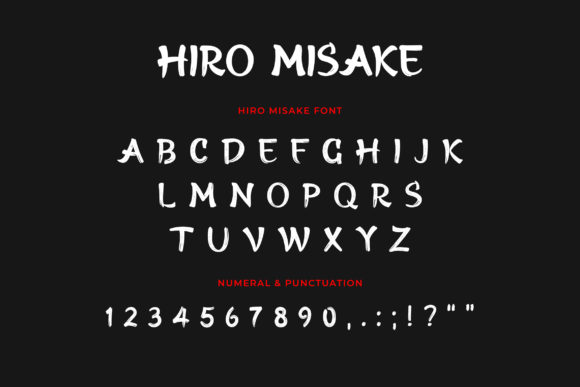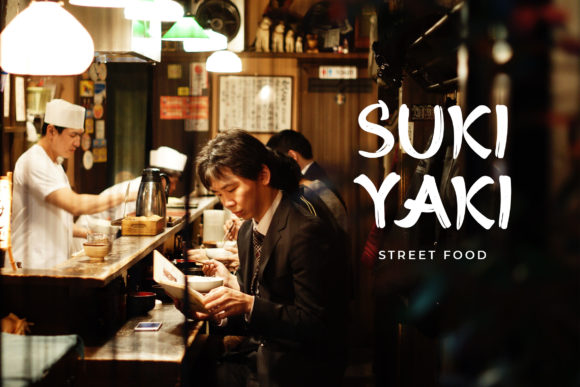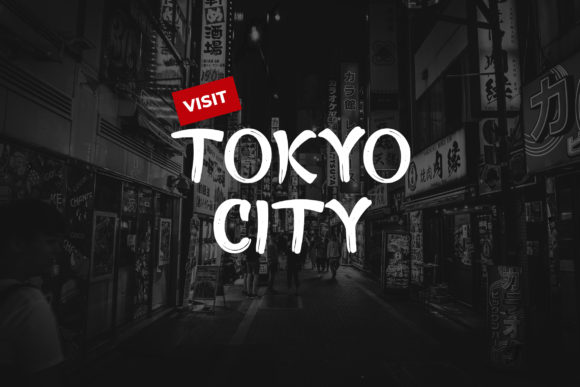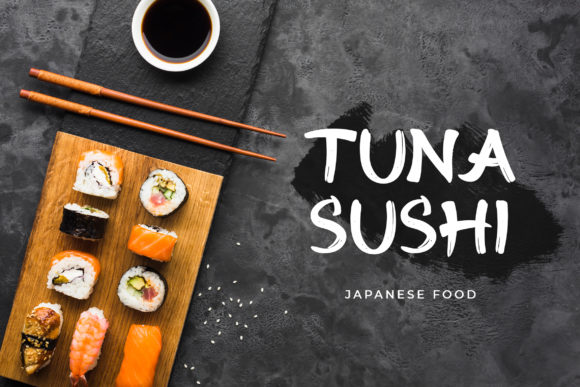
Introduction to Hiro Misake Font
Have you ever stumbled upon a design project that sparks creativity and leaves you wondering how to bring it to life? For designers, this is a familiar moment – a moment of inspiration that drives us to experiment with new fonts, colors, and textures. And for those seeking the perfect font to elevate their creative project, we’ve got just the thing: the Hiro Misake Font.
This incredibly genuine Japanese display font is a must-have in any designer’s library. Its unique style sets it apart from other fonts, making it an invaluable design resource for anyone looking to add a touch of authenticity to their work. Whether you’re working on a logo, brochure, or website, the Hiro Misake Font is sure to bring your design to life with its high-quality, transparent background.
Key Features of Hiro Misake Font
- High-quality design: The Hiro Misake Font is designed with a focus on precision and detail, making it an excellent resource for any creative project.
- Transparent background: This font offers a transparent background, allowing for seamless integration with any design or image.
- High-resolution design: With a resolution of up to 300 DPI, the Hiro Misake Font is suitable for both digital and print projects.
- Unique character set: The font features a unique character set, including a range of Japanese characters and symbols, making it an excellent choice for designers working on projects with a Japanese theme.
Honest Review: Hiro Misake Font
I recently had the chance to experiment with the Hiro Misake Font, a design resource that’s been making waves in the creative community. As a designer, I was excited to see if it lived up to the hype.
- ✨ The font has a unique, hand-drawn feel that adds a touch of personality to any project.
- ✨ The high-quality design makes it perfect for a variety of creative projects, from logos to typography-heavy posters.
- ✨ The transparent background makes it easy to use in combination with other design elements.
- ⚠️ The font may not be suitable for projects that require a more formal or traditional look.
- ⚠️ Some users may find the font difficult to read at smaller font sizes.
Hiro Misake Font
To get the most out of the Hiro Misake Font, use it with a transparent background to create a clean and modern look. You can also pair it with other fonts for a unique and creative design.
The Hiro Misake Font is ideal for logos, graphics, and other design elements in creative projects. It’s also great for creating high-quality documents, presentations, and other design resources with a transparent background.